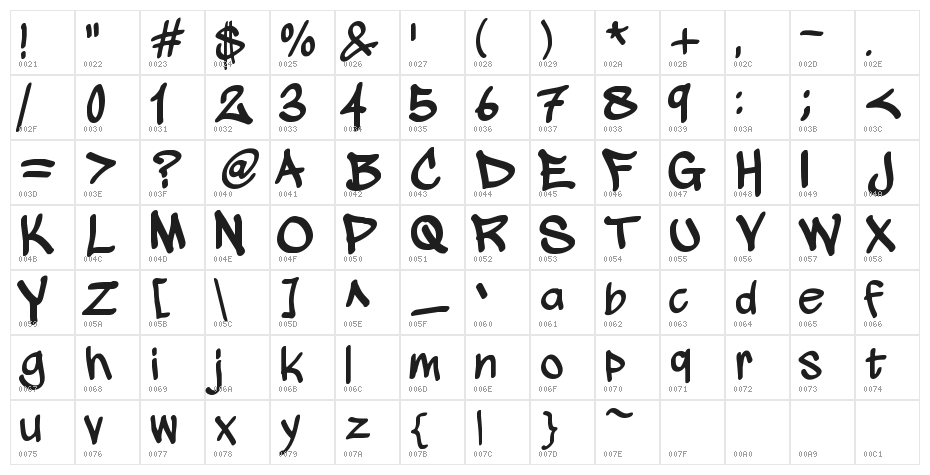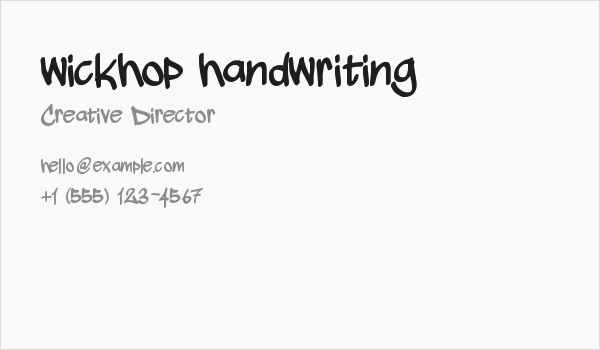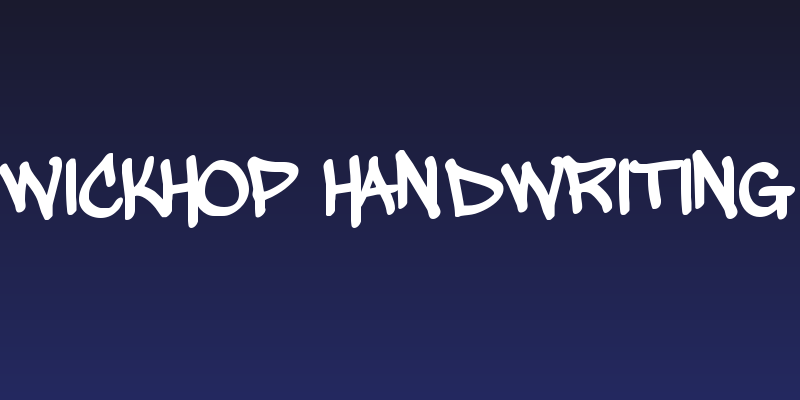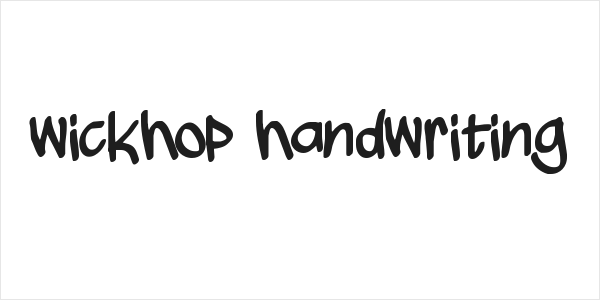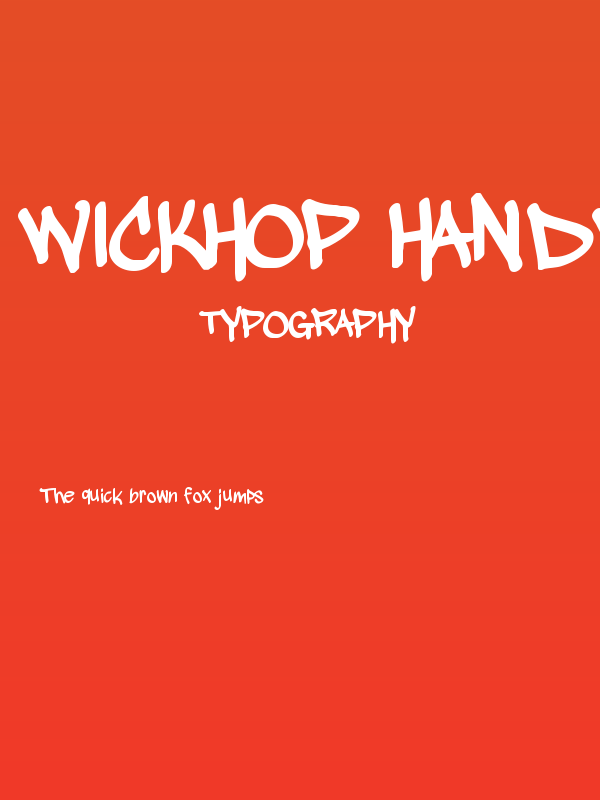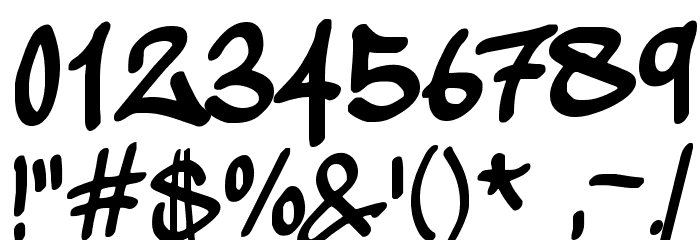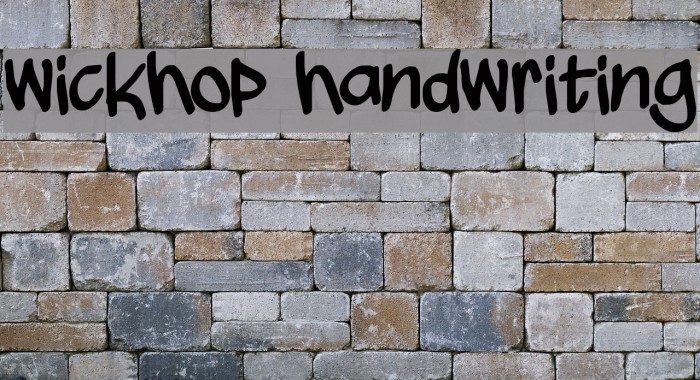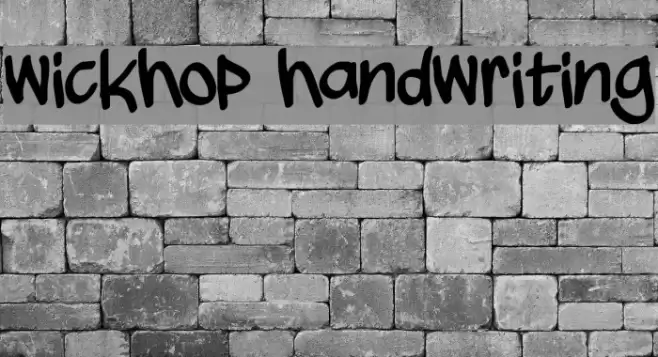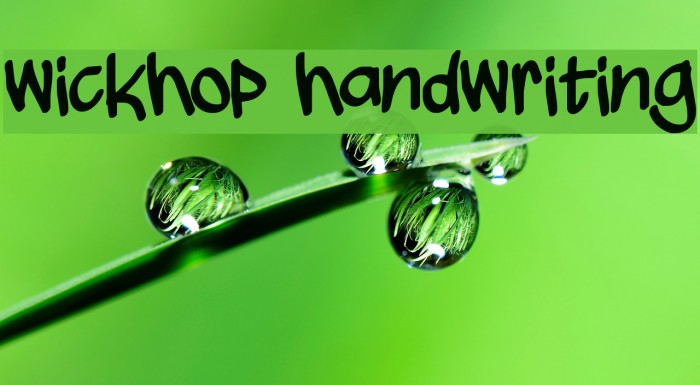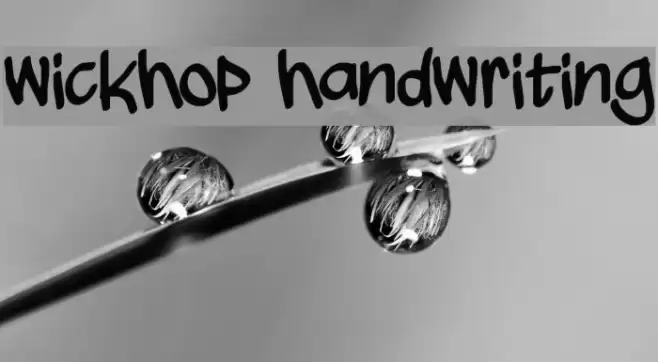
wickhop handwriting Font
wickhop handwriting Description
This font exudes a playful and casual vibe, characterized by its bold, handwritten style. The letters are slightly irregular, giving it an authentic, personal touch that mimics natural handwriting. The strokes are thick and rounded, contributing to a friendly and approachable appearance. This font maintains a consistent weight throughout, with a slight slant that adds to its dynamic feel. The spacing between characters is relatively tight, which enhances its cohesive look. The font includes a full set of uppercase and lowercase letters, numbers, and a variety of special characters, making it versatile for different uses.
| Overall Style | Playful |
| Use Case | Logos, Headlines, Posters |
| Proposed Projects | Ideal for greeting cards, children's books, playful branding, and social media graphics. |